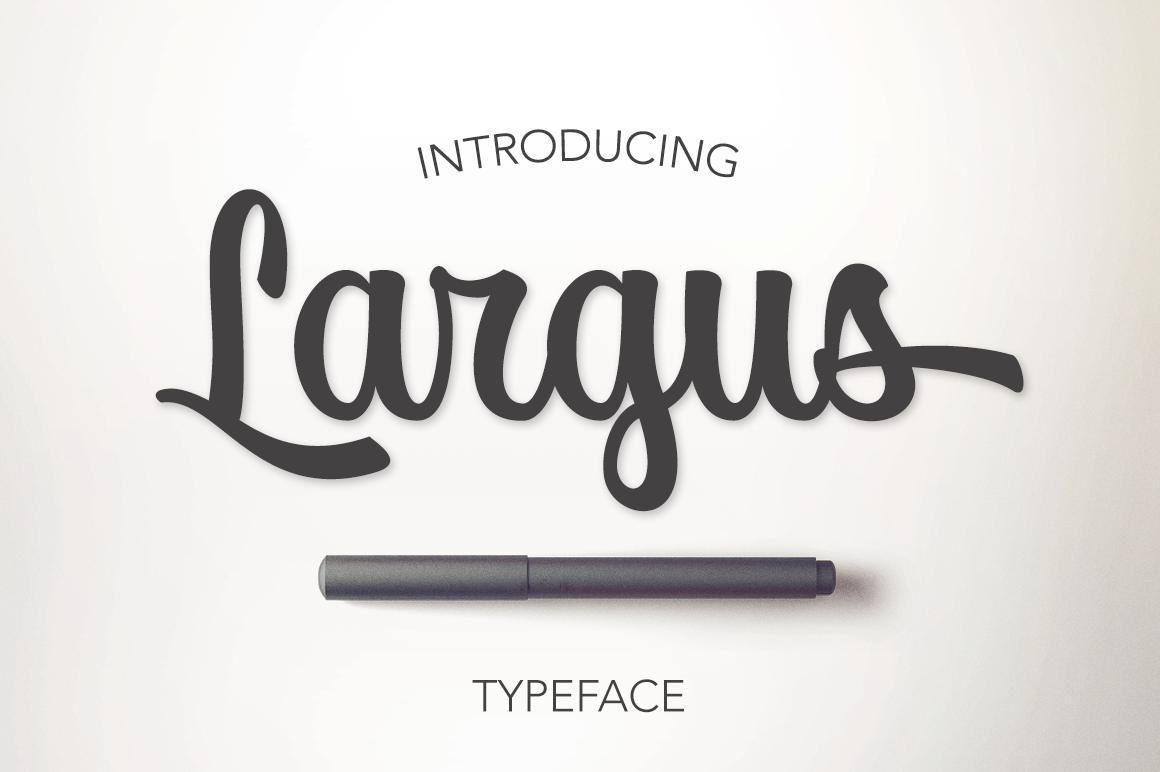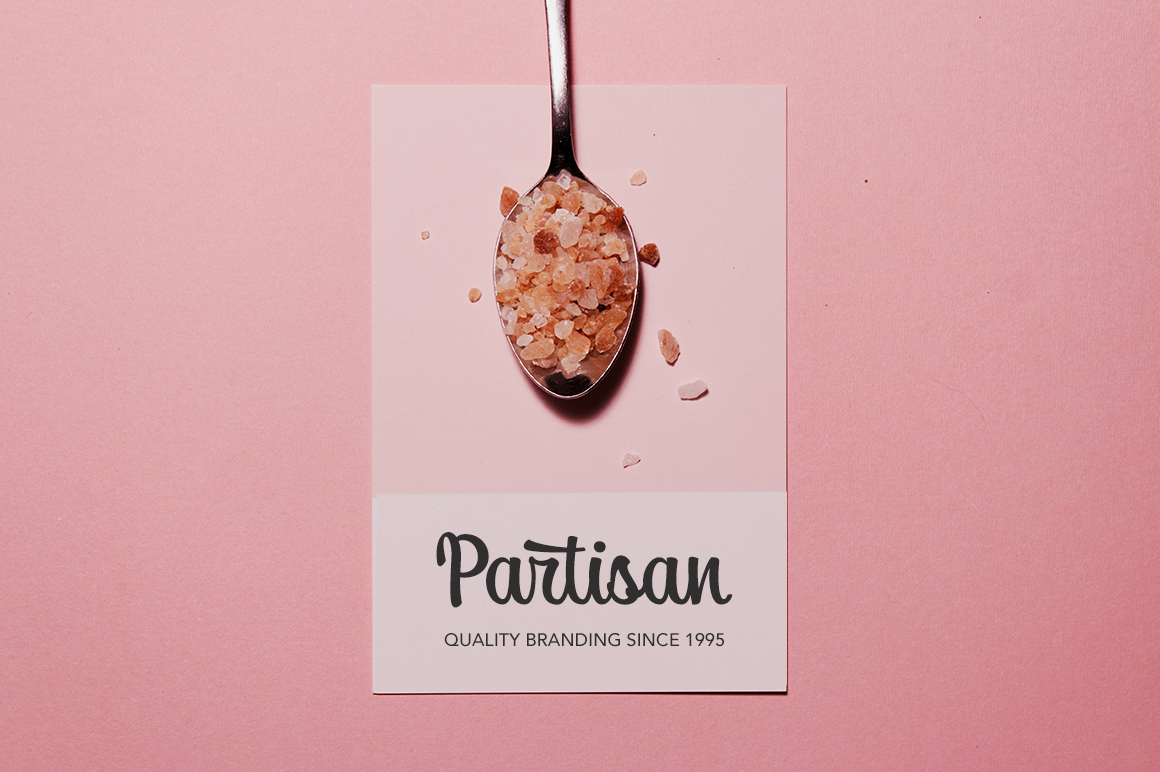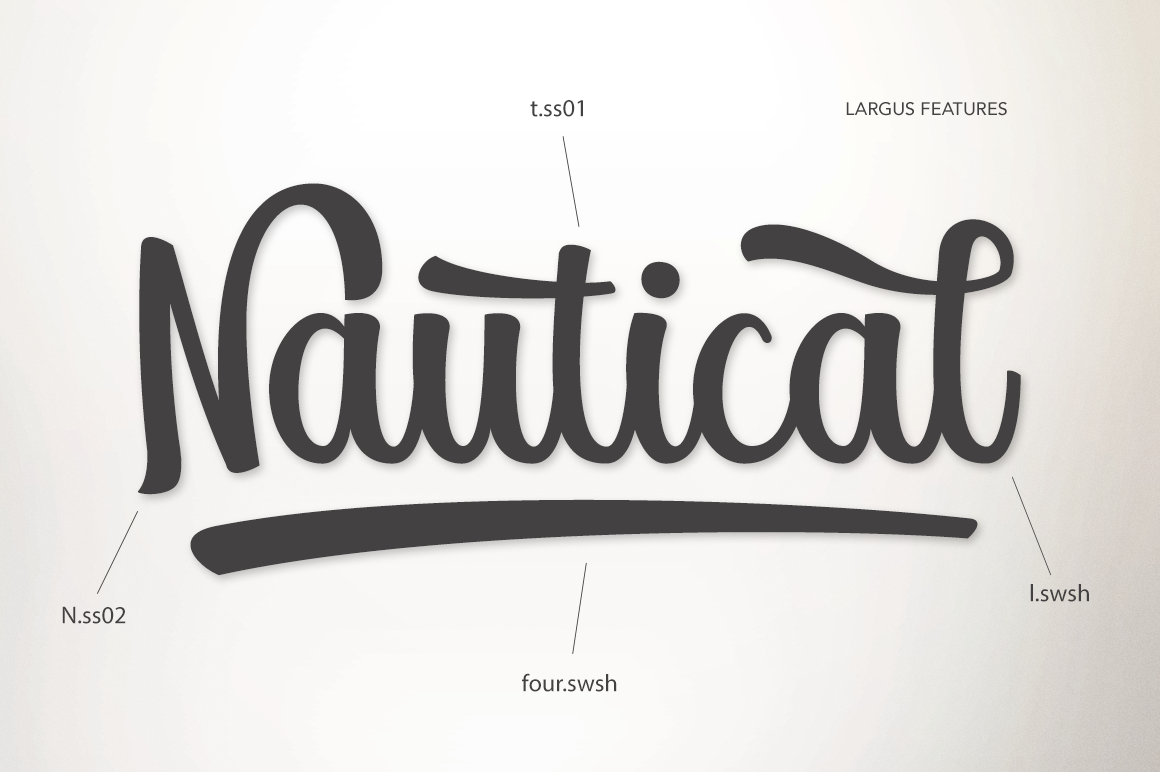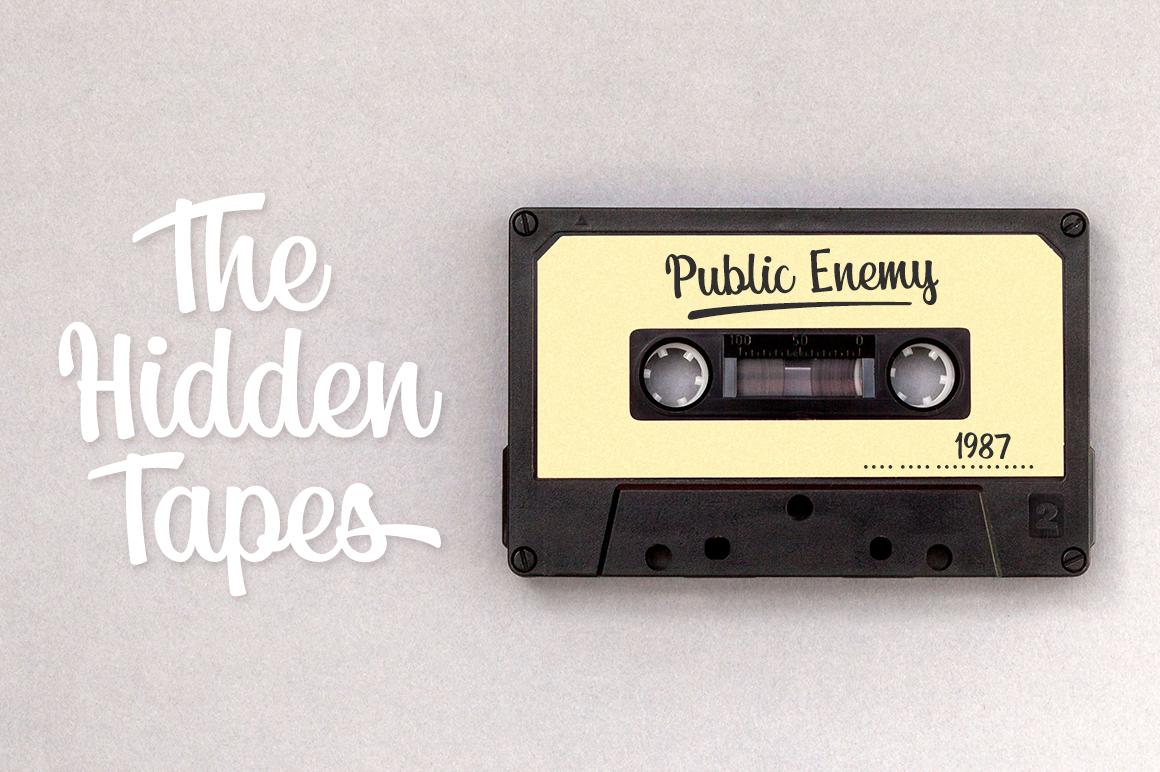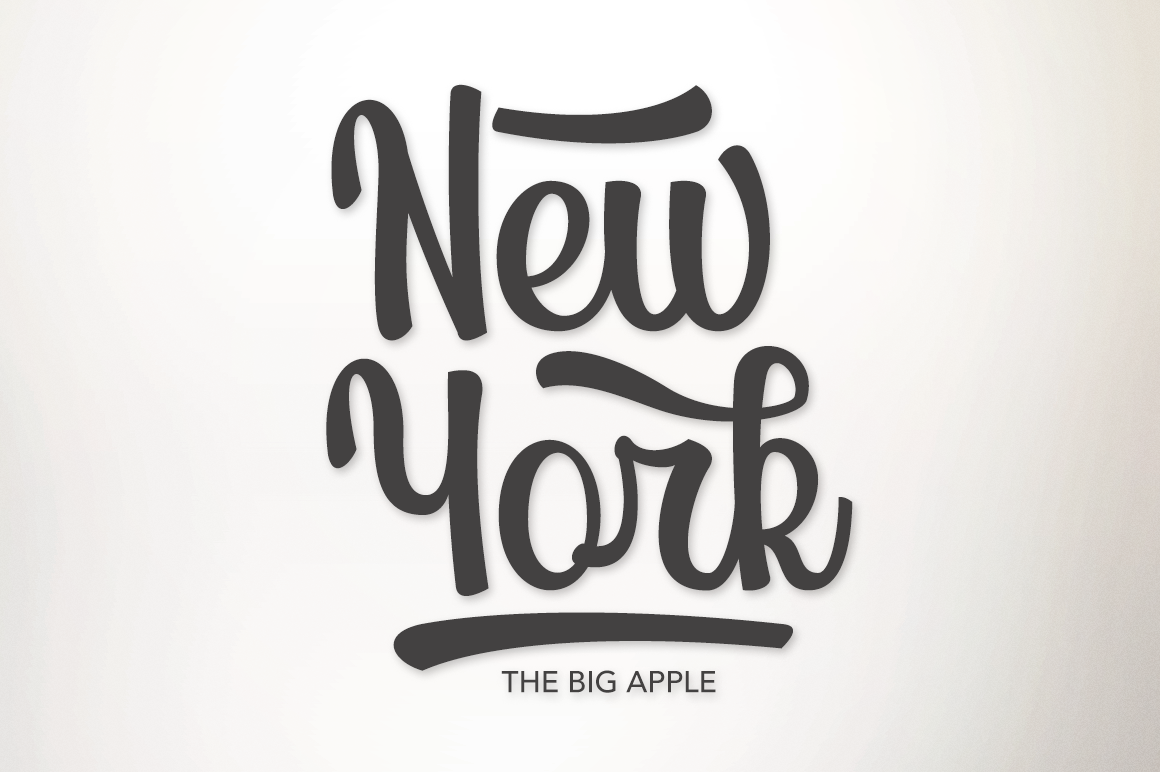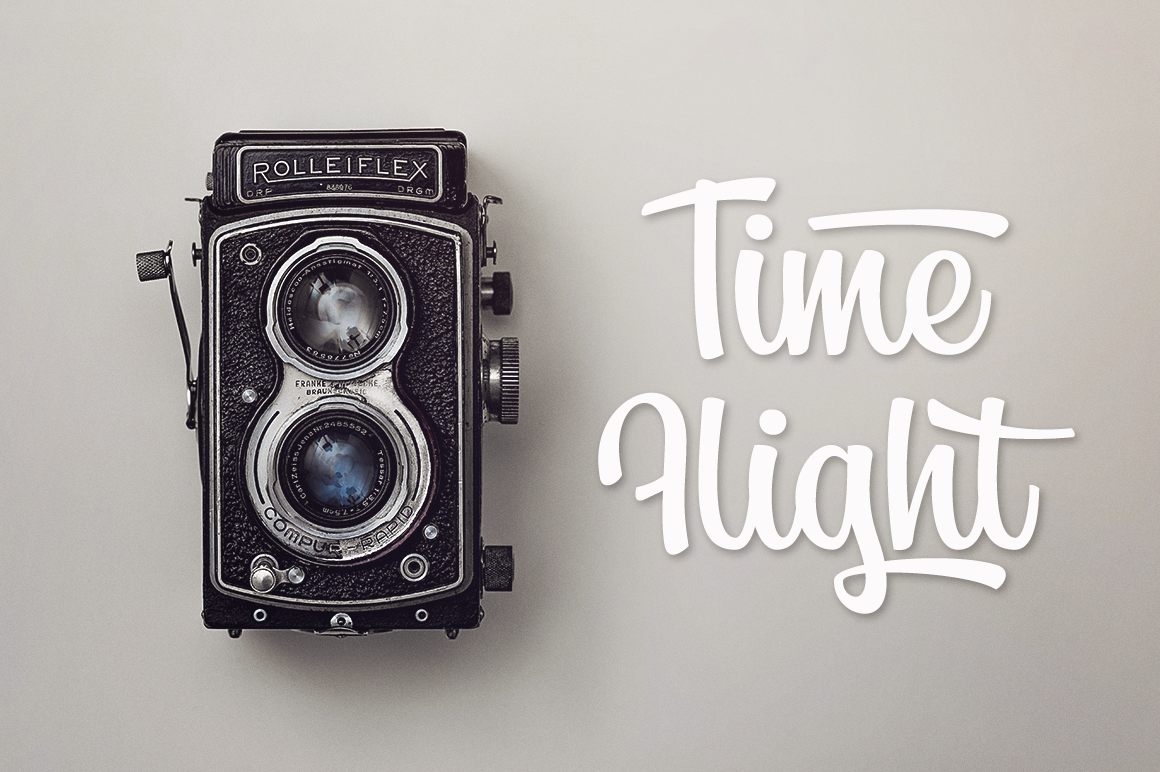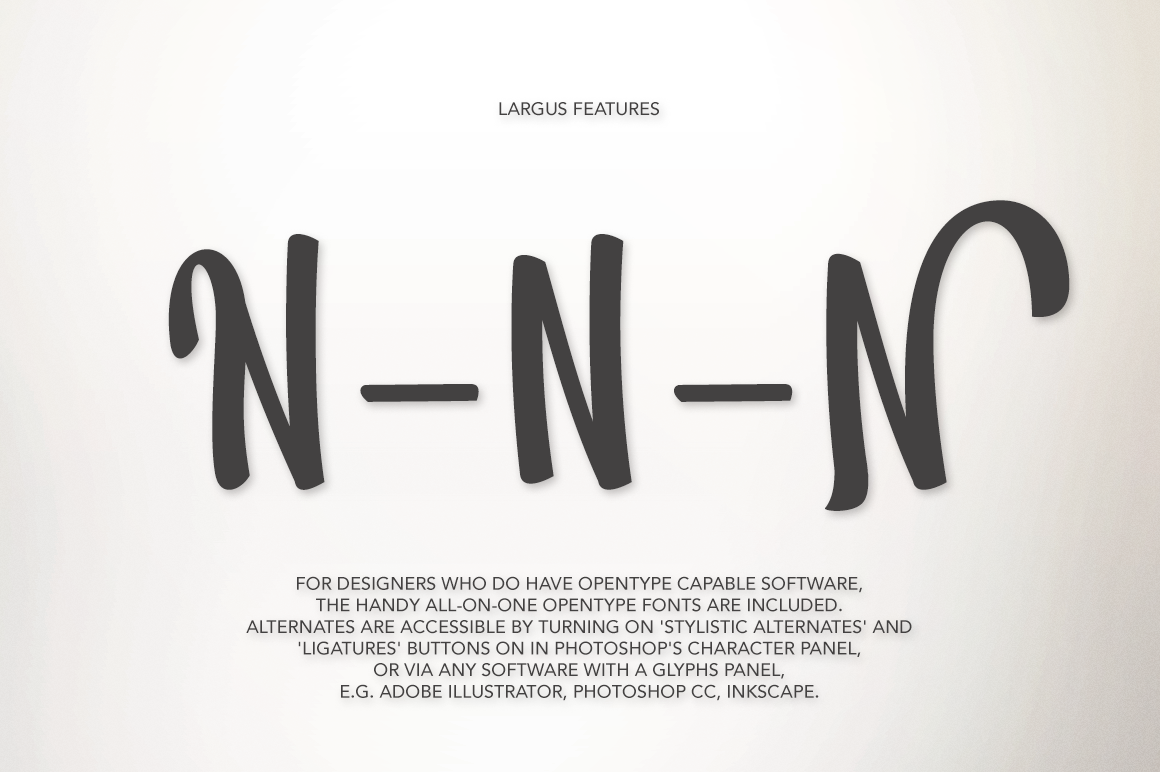
Largus Font
About Largus Font
Largus is a gorgeous script font with a highly brand-able appeal; this thick and bold script is a great way to give your designs a retro, painterly vibe.